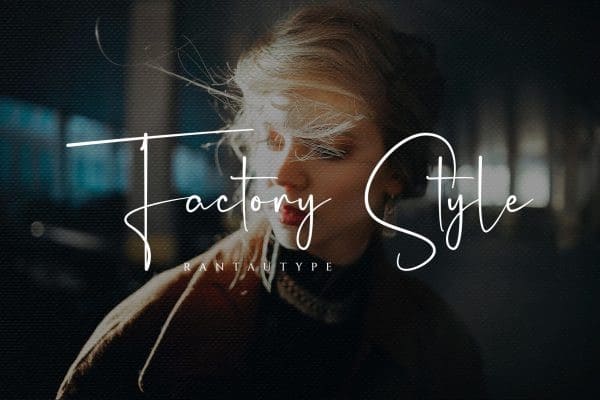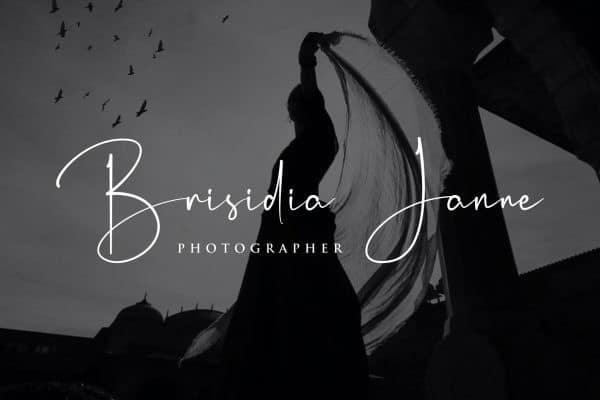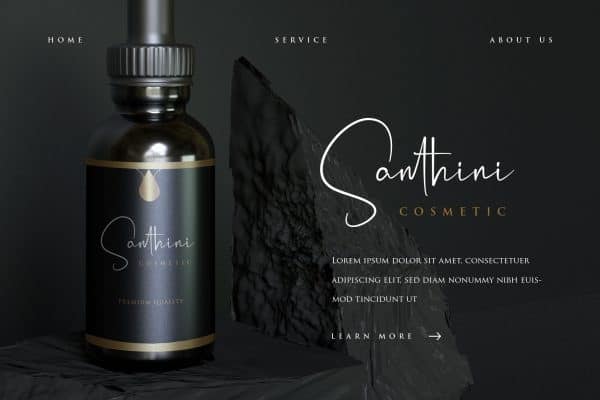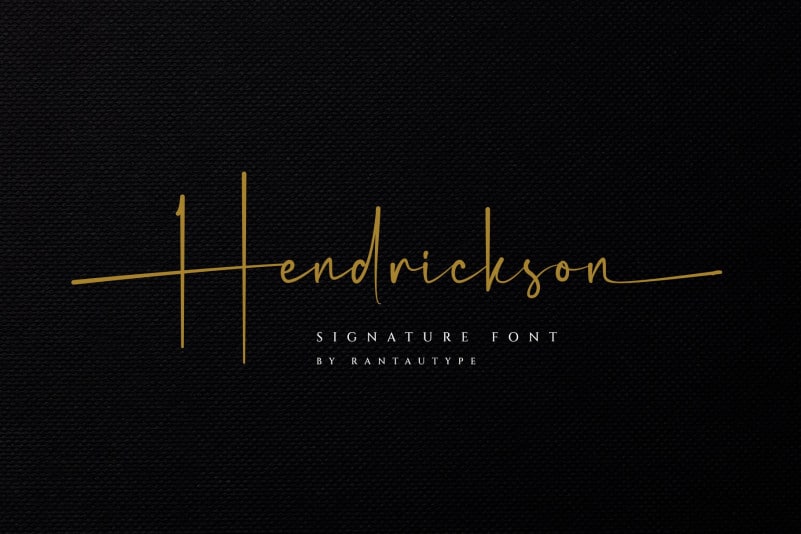
Hendrickson Script This font is inspired by the signature that makes writing cool and unique. It’s designed and shared by Rantautype. This font looks elegant, luxury, premium, modern, readable, stylish, feminine, girly, catchy and easy to use also included with more swash. Hendrickson is the great choice for watermark on photography, signature or signature logo design, quotes, album cover, magazine, business card and many other design project. Hendrickson here to make your work to high level!!!